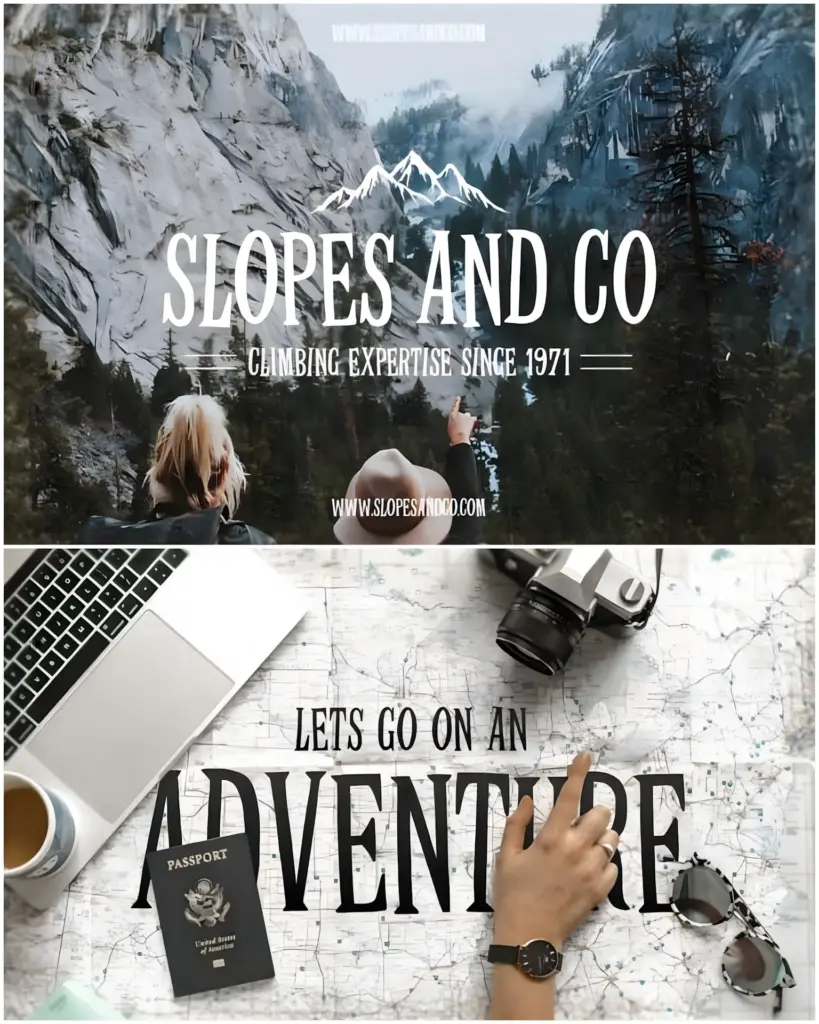
Travel Stories Serif Font for Creative Travel Designs
Travel Stories serif font showcase featuring a wonky slanted vintage typeface designed for travel posters, branding, and storytelling typography.
Travel Stories is a cool serif font made by an indie designer. It feels like going on an adventure! The letters are special and handmade, with thin serifs and a slightly rough look. This gives it a relaxed, old-fashioned vibe. It’s great for travel blogs, handmade items, and anything where you want to show off creativity. This font will for sure spark some inspiration.